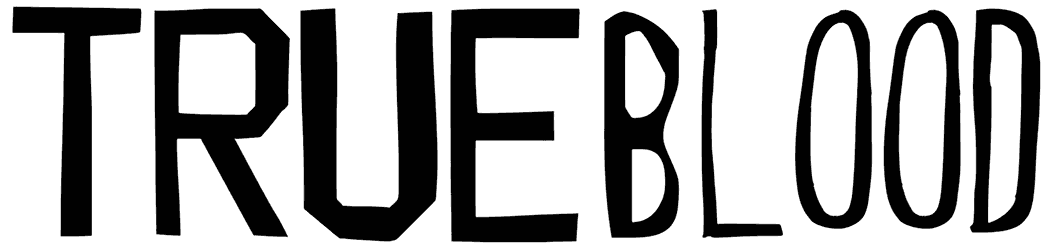
Trueblood Font
If you’re looking for a multipurpose font that can handle projects with different themes, Trueblood will meet your needs for a long time.
This display font is designed on a hexagonal basis and can work well in educational or scientific projects. Using it in scary and bloody designs can double the sense of horror in them. Although lowercase letters aren’t designed for this font, changing the thickness of uppercase letters can help you create a different weight.
This is my own version of the TRUE BLADE and TRUE GOTHIC Mixture of fonts used in the TRUEblood series pain-stackingly created from many screen dumps and much artistic flair. If you want the O with the underline then use the comma (,)